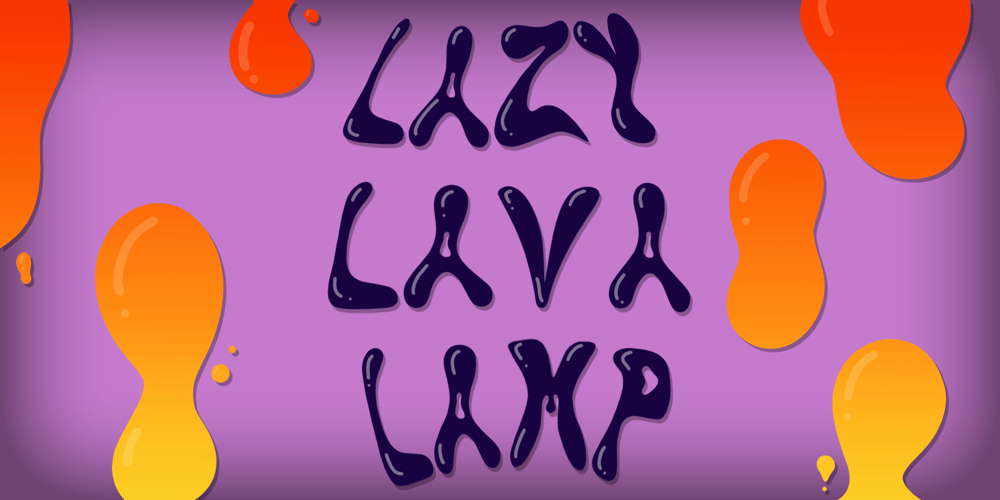
Lazy Lava Lamp
Lazy Lava Lamp font
Lazy Lava Lamp Font Family was designed by Kim Ariana and published by Kim Ariana Art Shop. Lazy Lava Lamp contains 1 styles and family package options. LET’S GET FUNKY!Lazy Lava Lamp is a fun, retro, funky font perfect for grabbing people’s attention and reminiscing over the groovy 60’s and 70’s! This original font emulates the flowy movements of the lava in lava lamps, perfectly symbolizing the retro theme it’s meant to portray. Lazy Lava Lamp is exactly what you’ll need for party invitations, marketing posts, themed events, and even phone backgrounds!